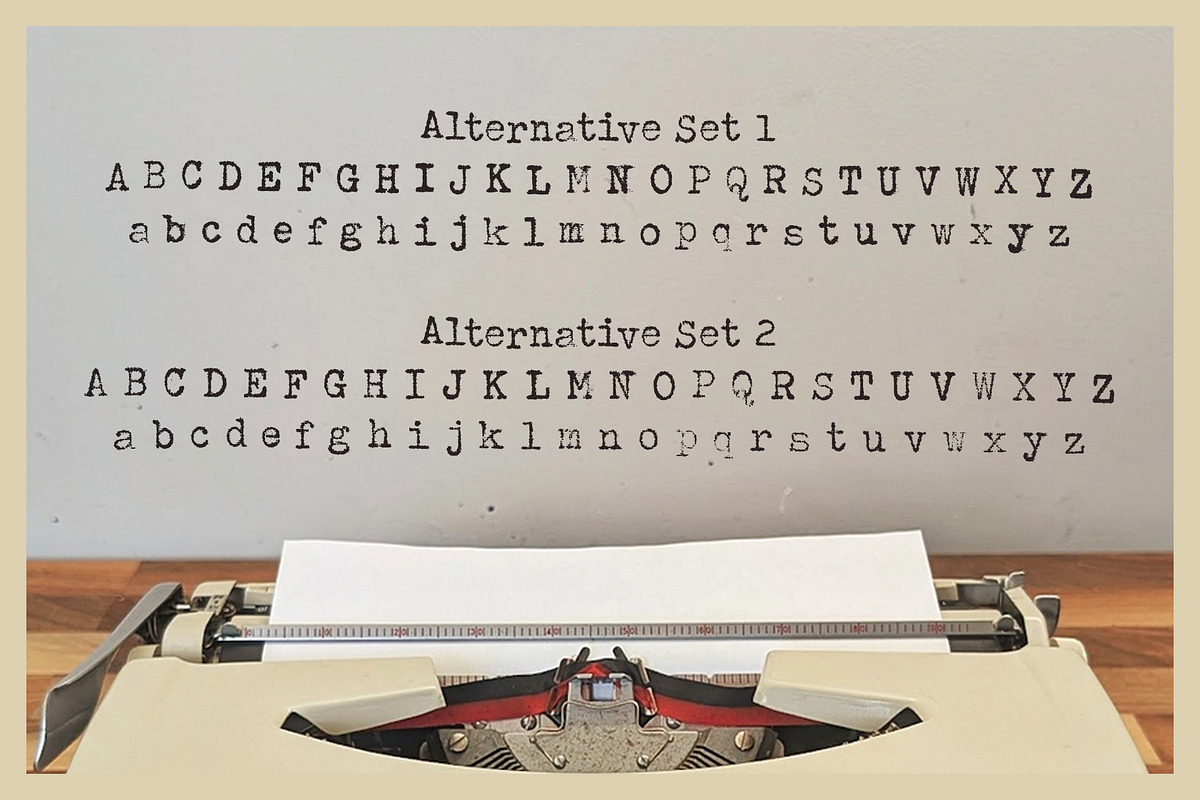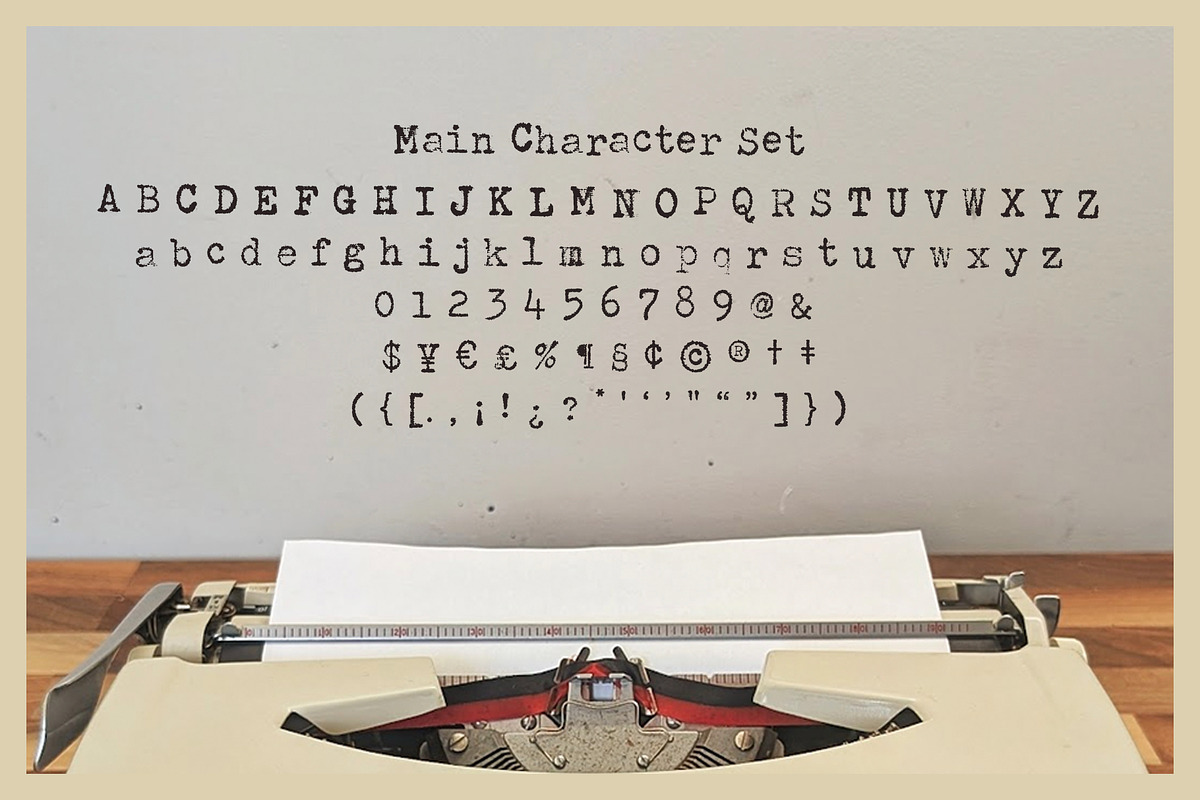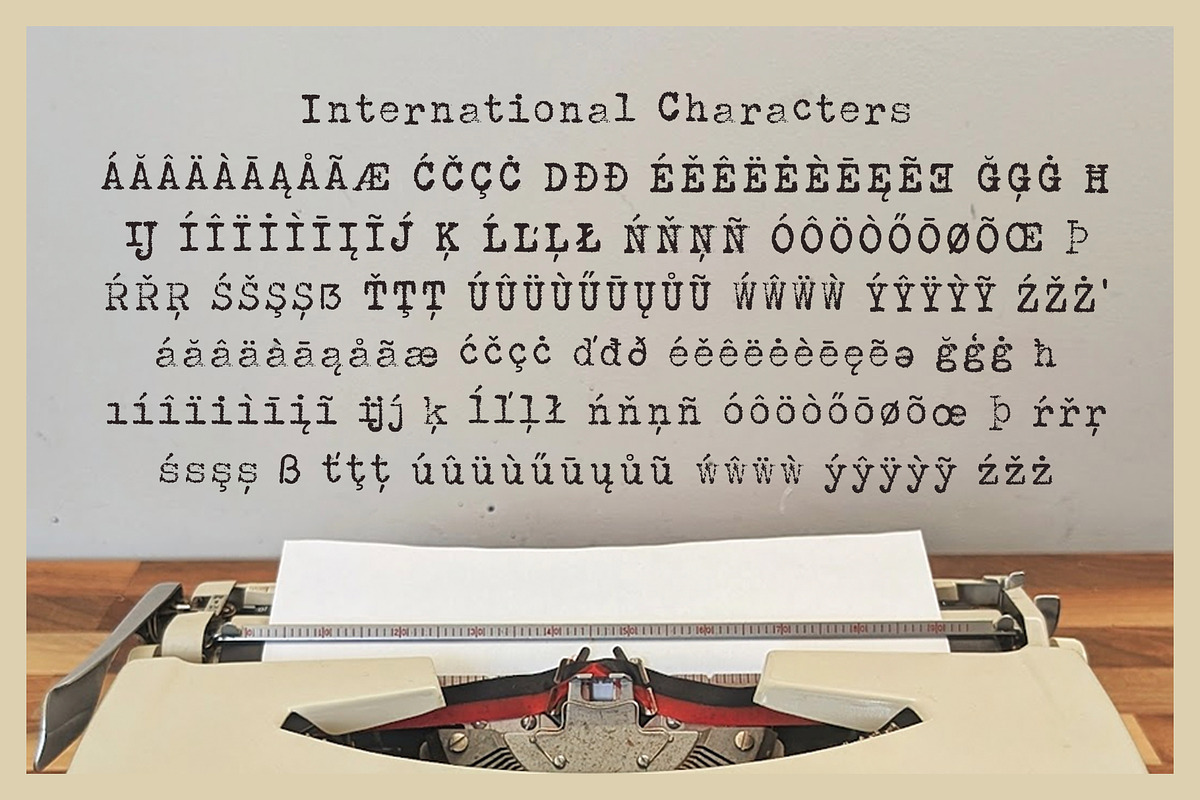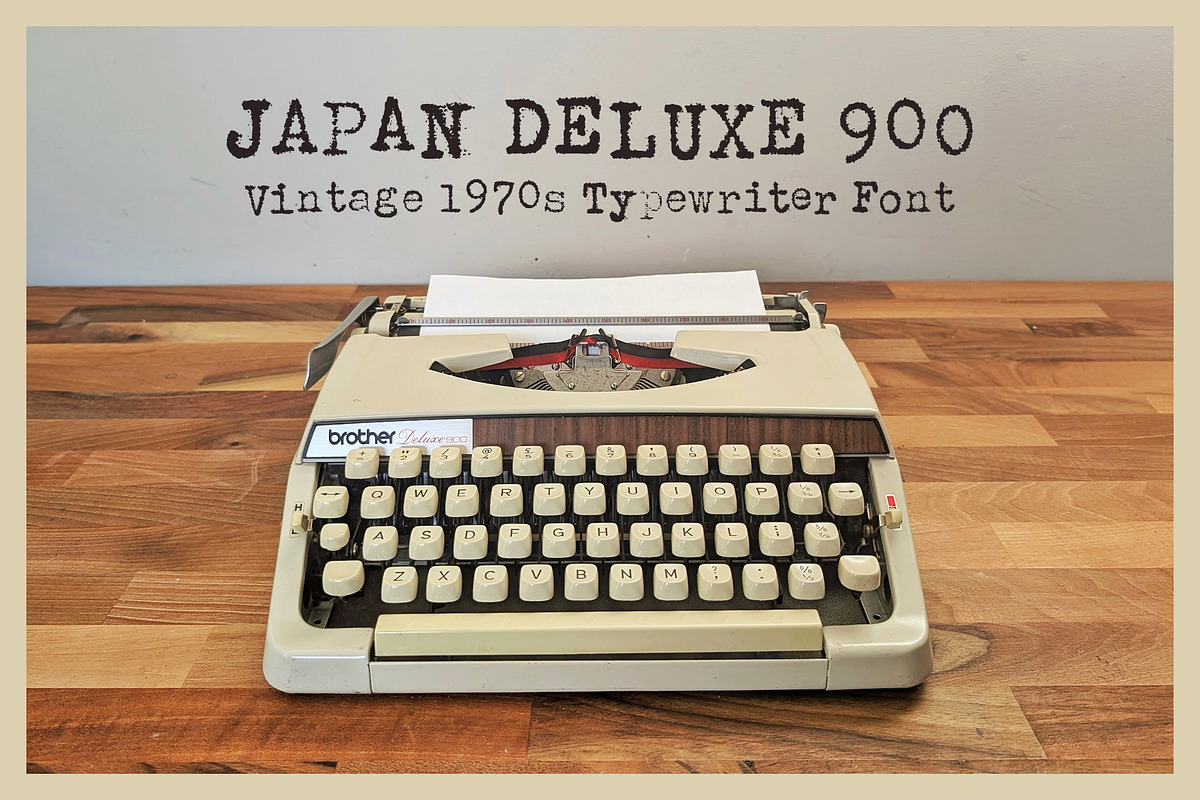
Japan Deluxe 900
Introducing Japan Deluxe 900, a richly textured typeface meticulously crafted from the authentic impressions of a 1970s Japanese vintage typewriter. Embracing the unique imperfections and tactile quality of ink on paper, this font captures the distinct character and nostalgic charm of its mechanical origins.
Enhance your designs with added versatility thanks to two complete sets of alternate characters, perfect for achieving varied typographic expression. With comprehensive international character support included, Japan Deluxe 900 brings its distinctive retro aesthetic and analog warmth to a global range of projects.